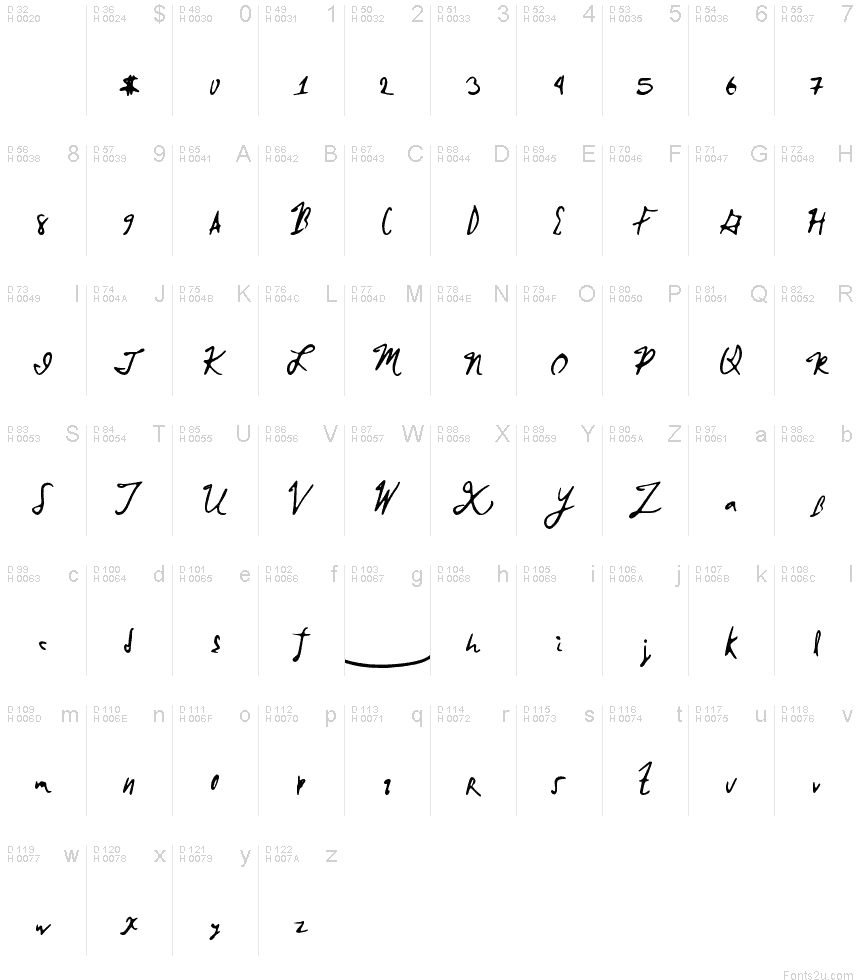
Broken Mustangs from Xerographer Fonts is a free handwritten display font with a restless, signature-like sweep. Its strokes jump between narrow loops, sharp hooks, and sudden changes in height. The uneven joins feel deliberately raw.
Its tangled contours can become part of scratched illustrations or photocopied textures rather than sitting apart as clean typography. That makes it convincing for underground music posters, skateboard merchandise, and horror title cards. The lettering best suits designers and audiences drawn to abrasive DIY graphics with a rebellious edge.
Zeichentabelle der Schriftart BrokenMustangs
Zeichentabelle von BrokenMustangs: Basis-Lateinisch, Seite 1
Glyphen der Schriftart BrokenMustangs — Basis-Lateinisch, Seite 1